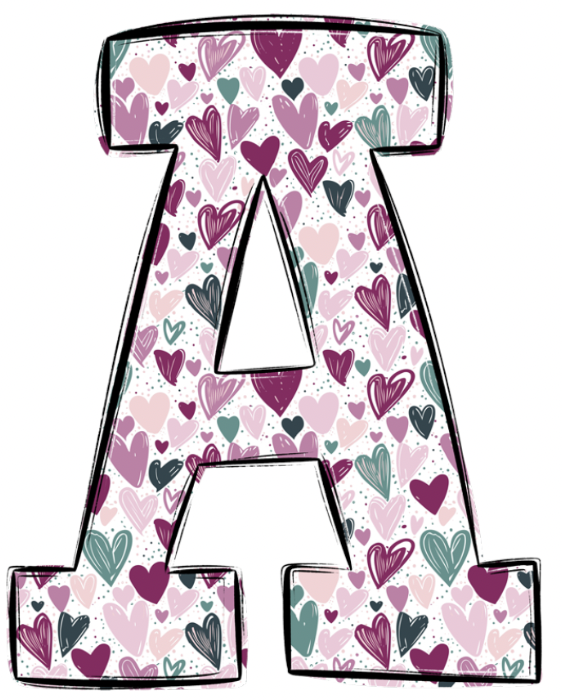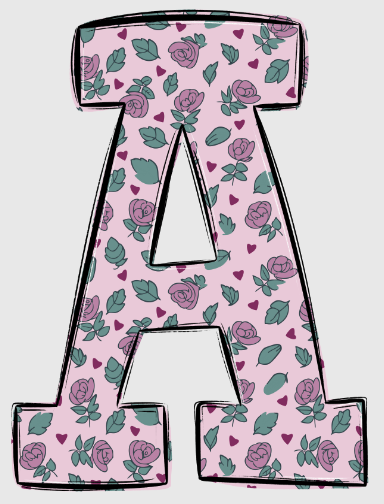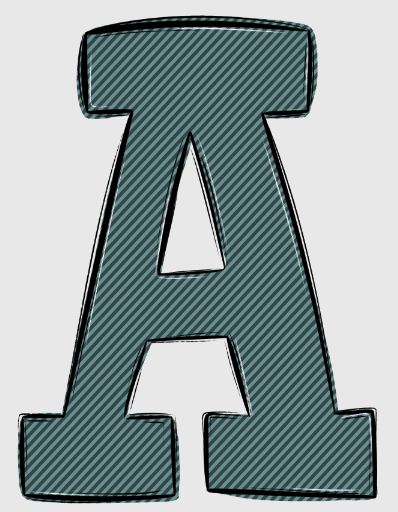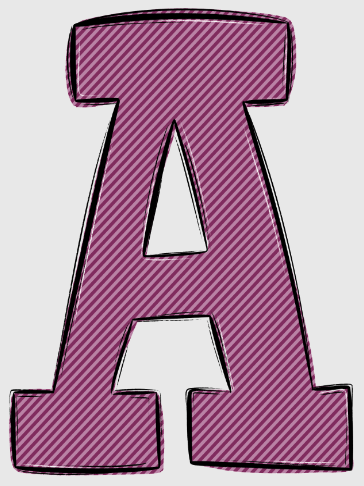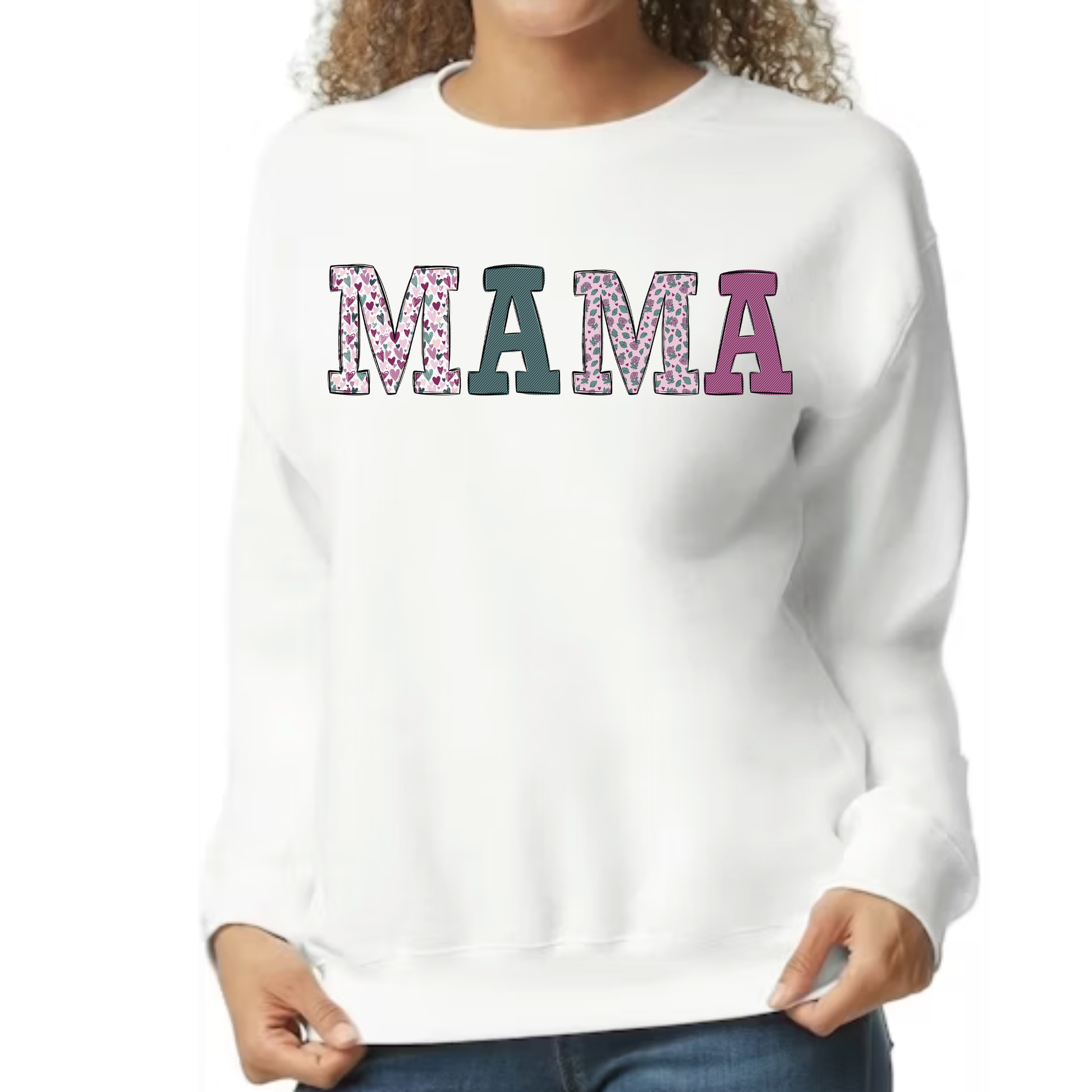
RR Floral Elegance Font Set (4 Uppercase Font Sets Included)
With this download you will receive four complete uppercase alphabet sets of 26 letters each. Included in the group are the Floral Elegance Hearts, Tulips, Purple Stripe and Teal Stripe sets. Also included is an OTF font for each different pattern which can be installed to type the letters directly in Photoshop.